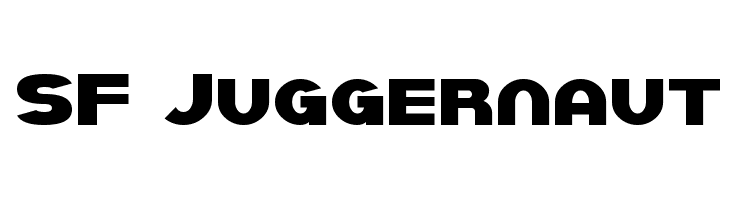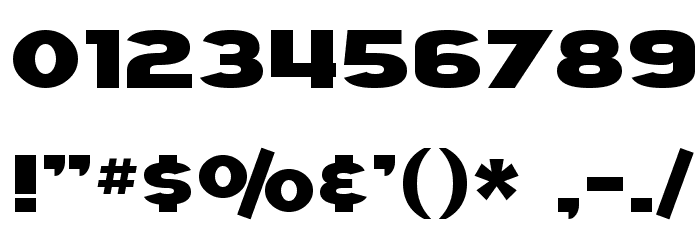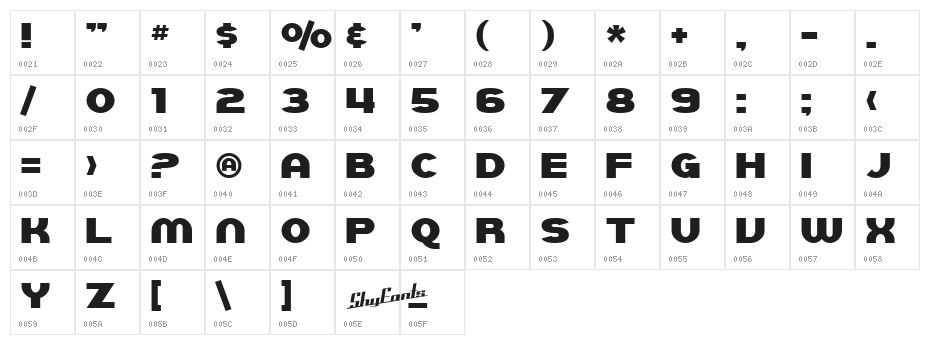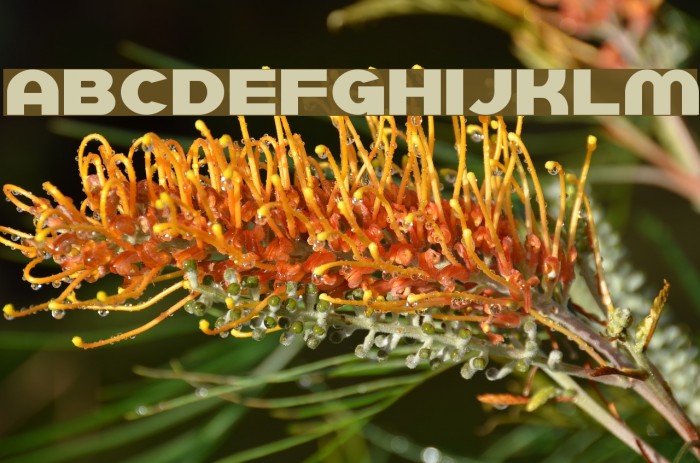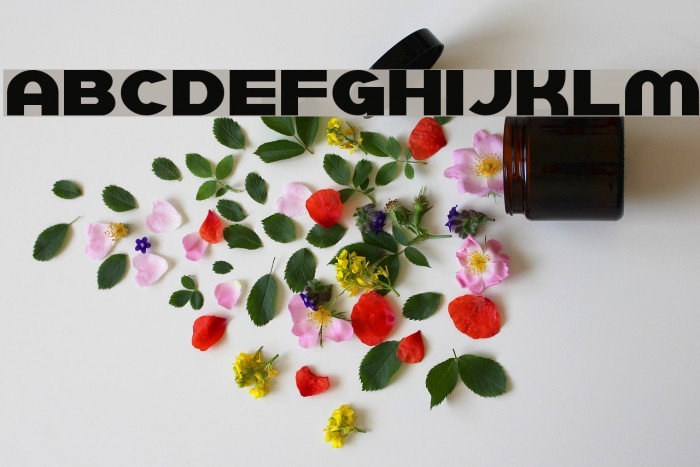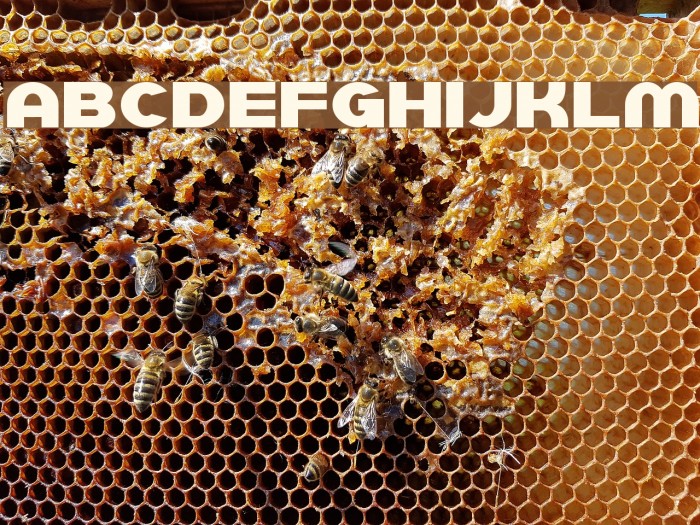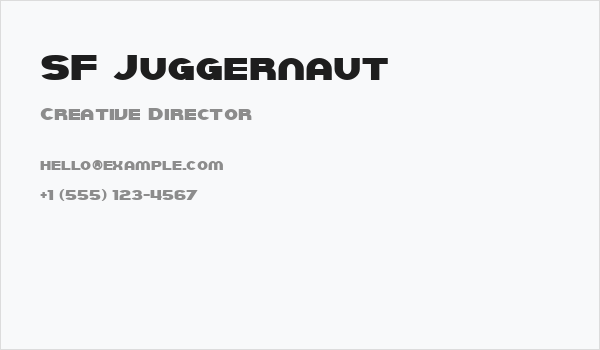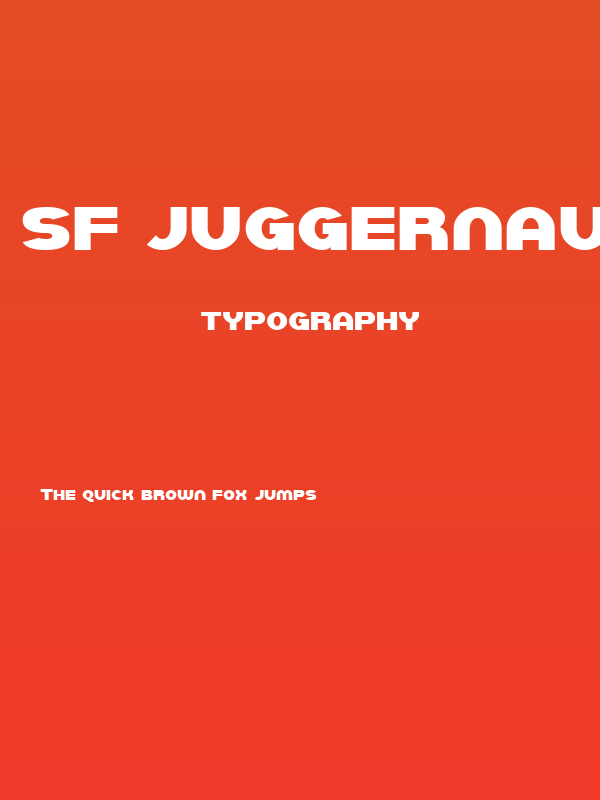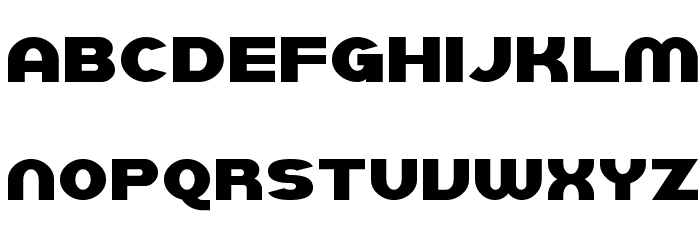
SF Juggernaut Font
SF Juggernaut Description
This bold and impactful font features strong, geometric shapes with a modern aesthetic. The characters are uniformly wide, with a consistent stroke thickness that gives a sense of stability and strength. The uppercase letters have a slightly rounded appearance, adding a touch of softness to the otherwise robust design. The numerals and special characters maintain the same boldness, ensuring a cohesive look across all elements. This font is well-suited for making a statement, with its clear and assertive presence.